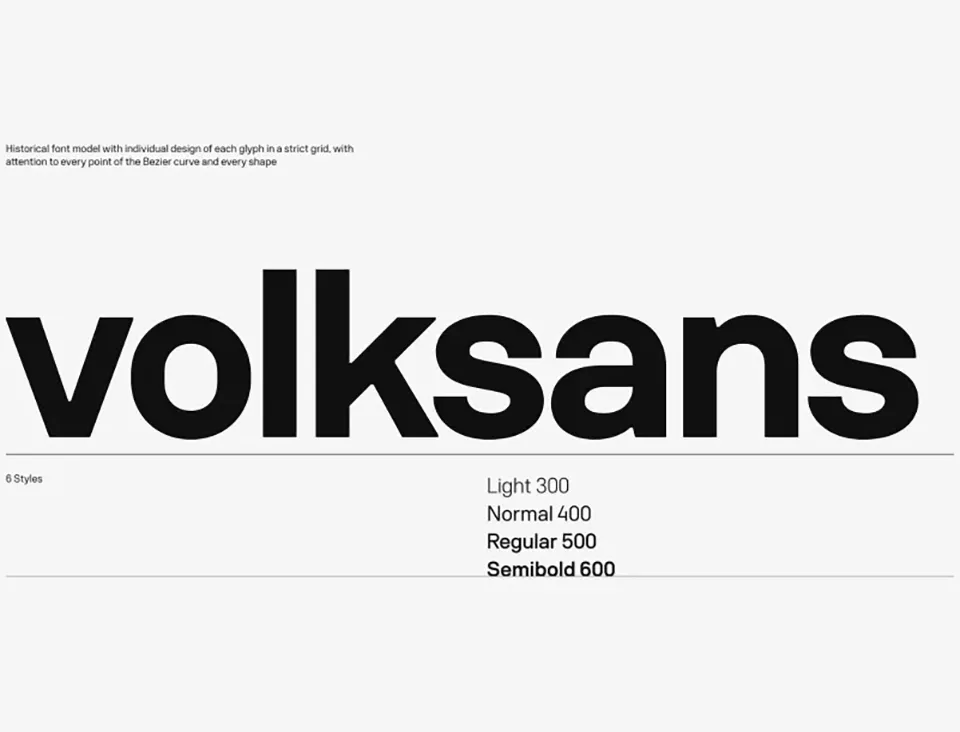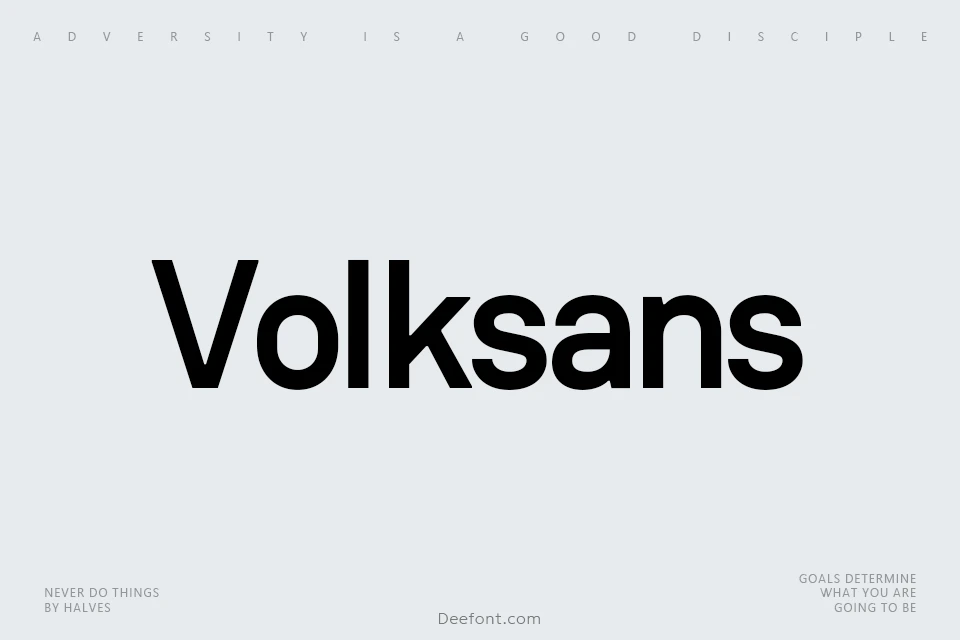
Volksans Font Family
Volksans Font Family is a modular geometric grotesque sans-serif typeface inspired by the 1905 Prussian railway standard (Preußische IV 44). Each glyph is crafted with meticulous attention to bezier curves and a strict grid system, resulting in a font that balances technical accuracy, practicality, reliability, and neutrality. With minimal stroke contrast and no decorative details, it is ideal for both large text arrays and display use. The family includes 6 weights (Light, Normal, Regular, Semibold, Bold, Black), supports extended Latin, and offers 35 OpenType features and 14 stylistic sets. Its design reflects a modern interpretation of historical models, aiming for clarity and functionality without chasing trends.